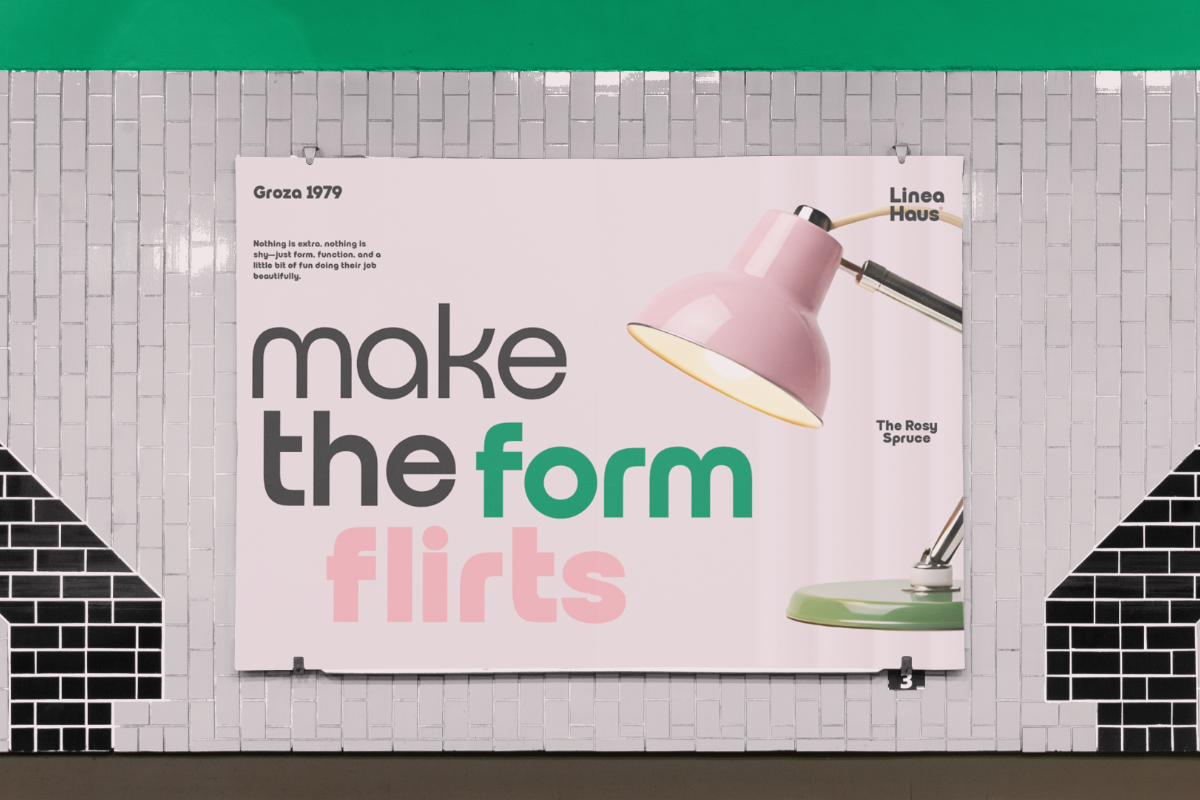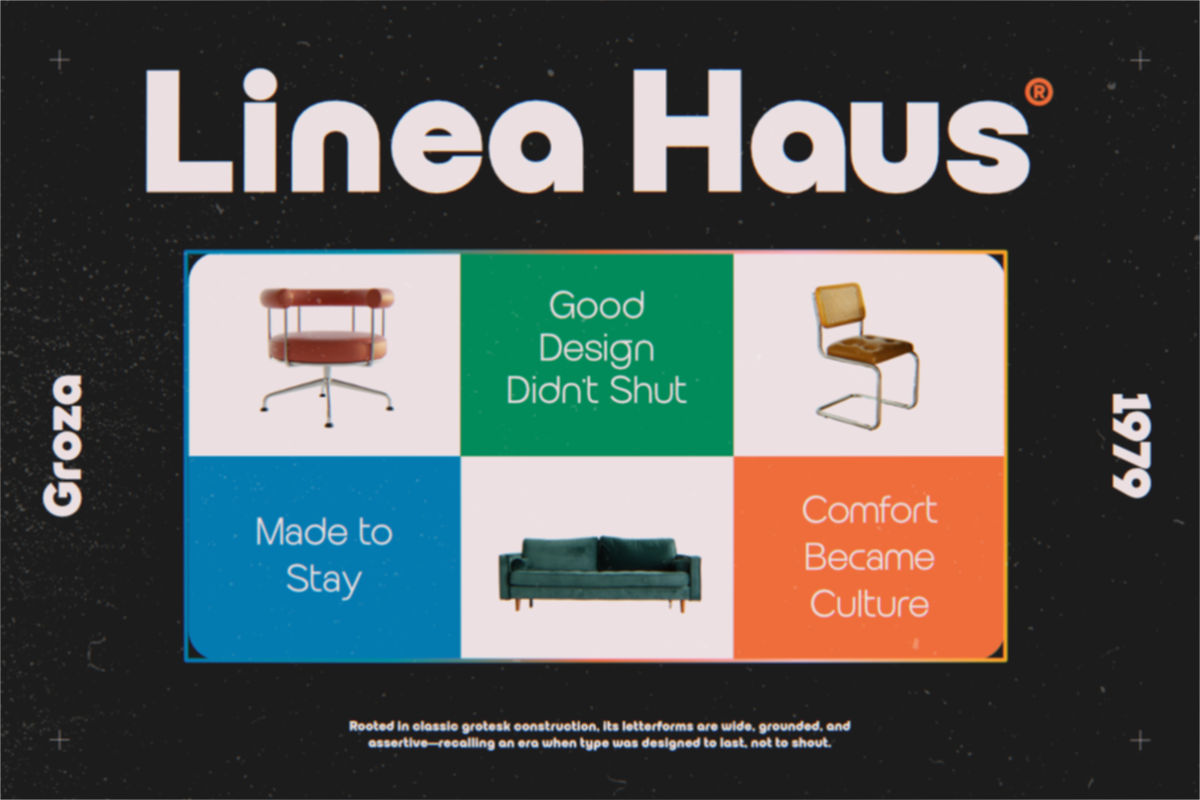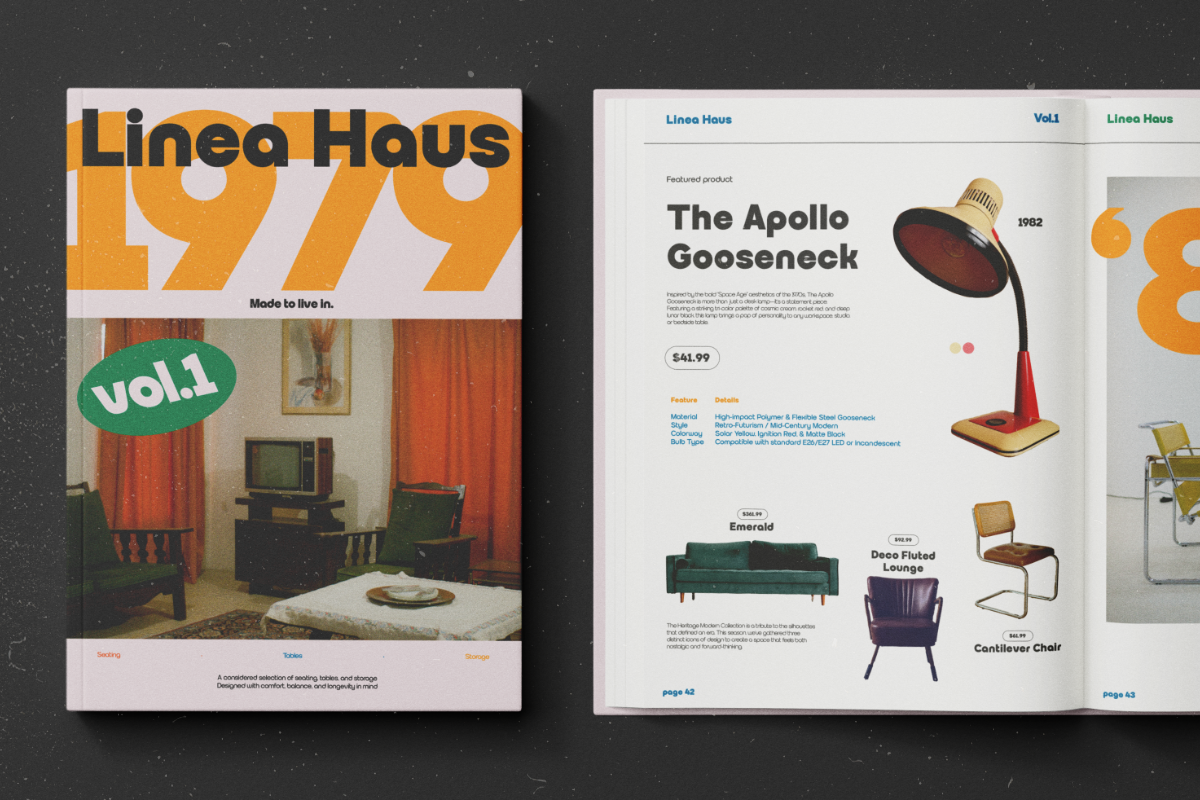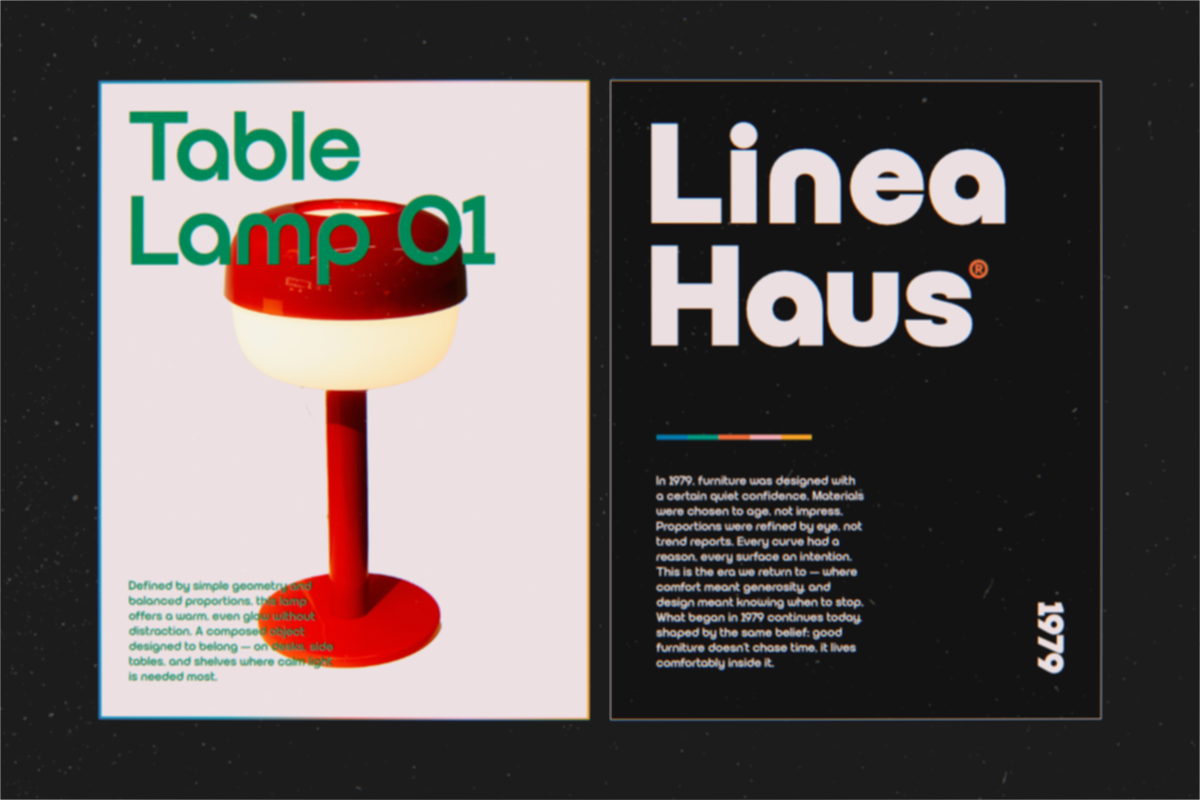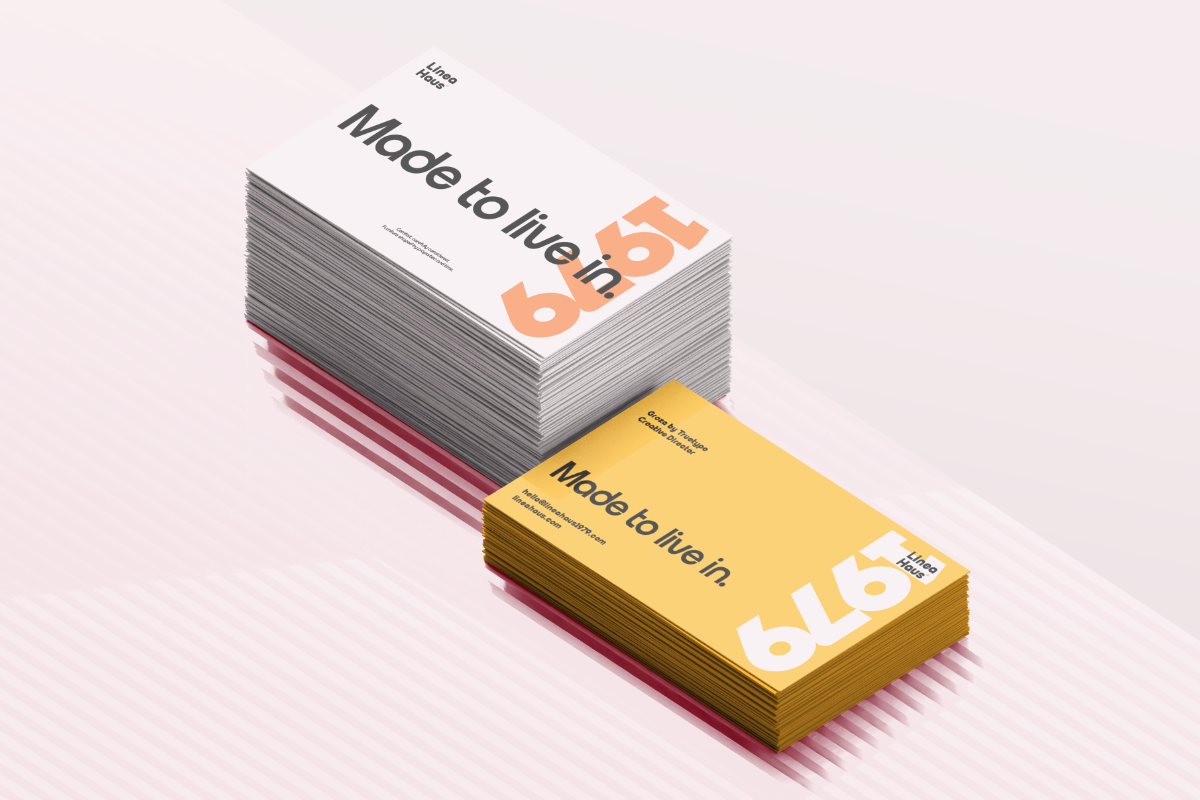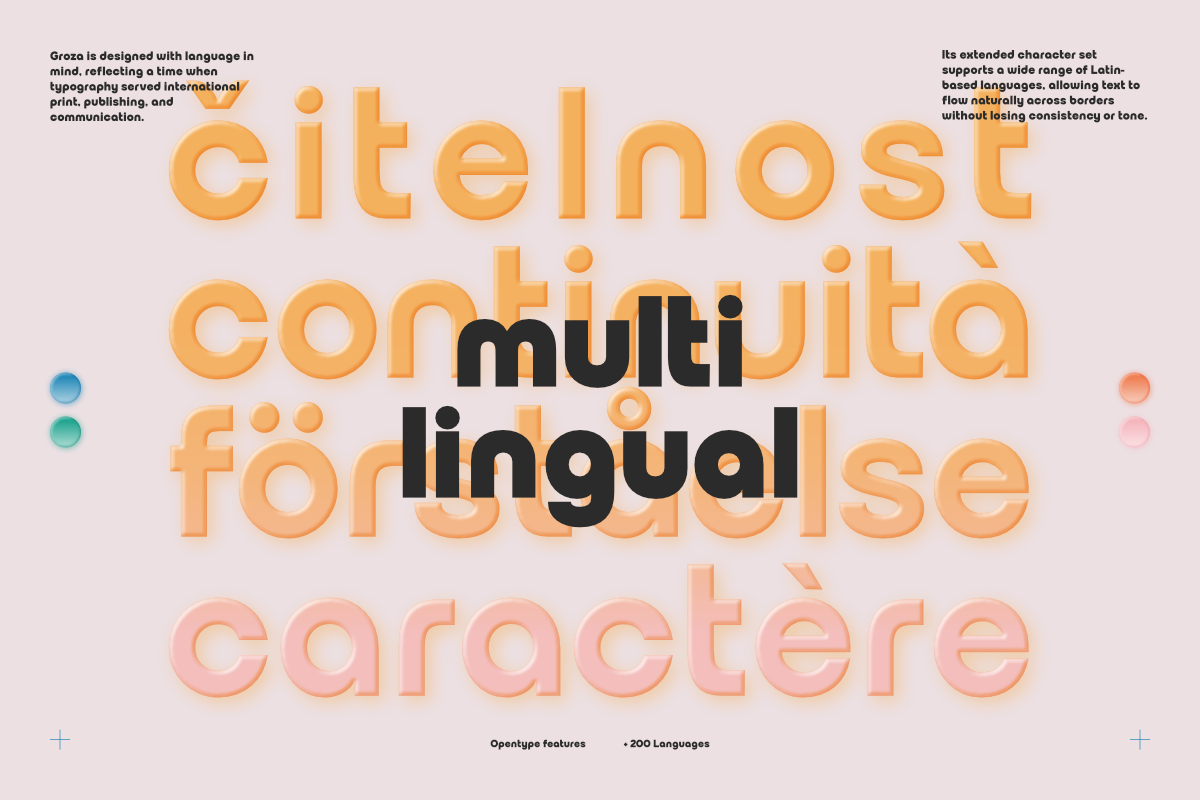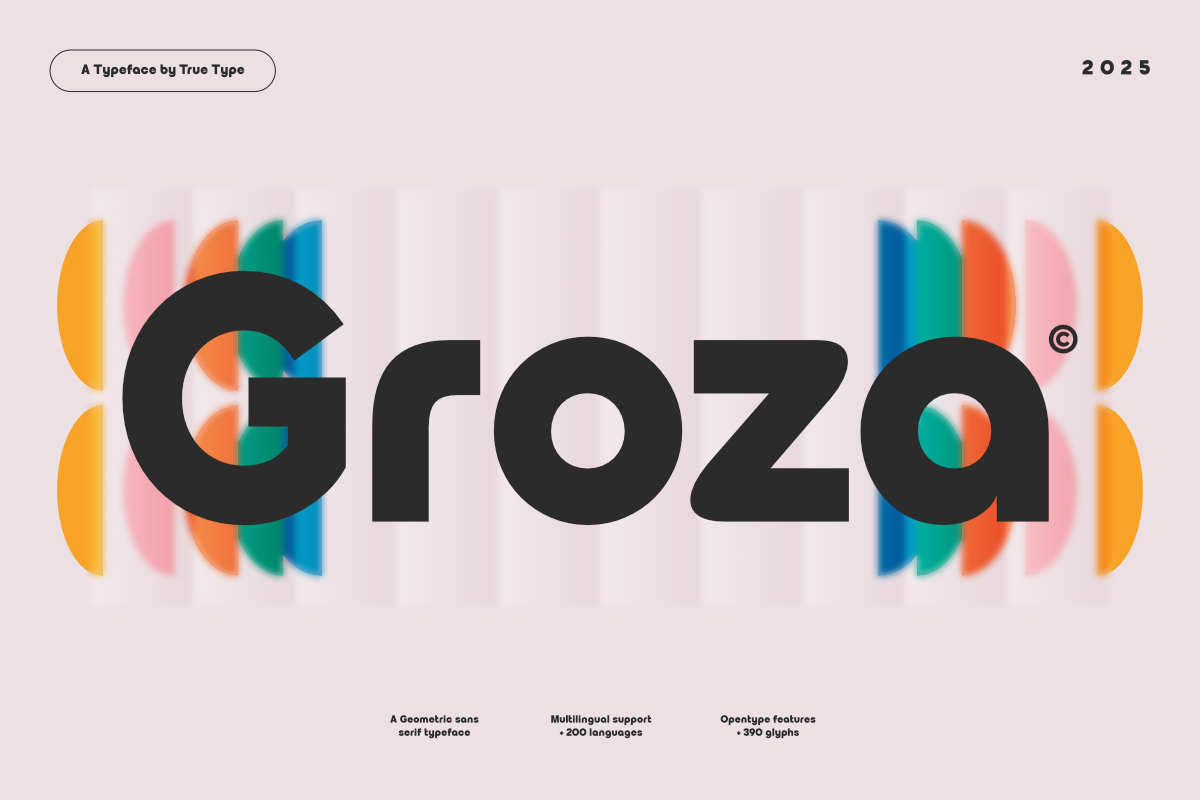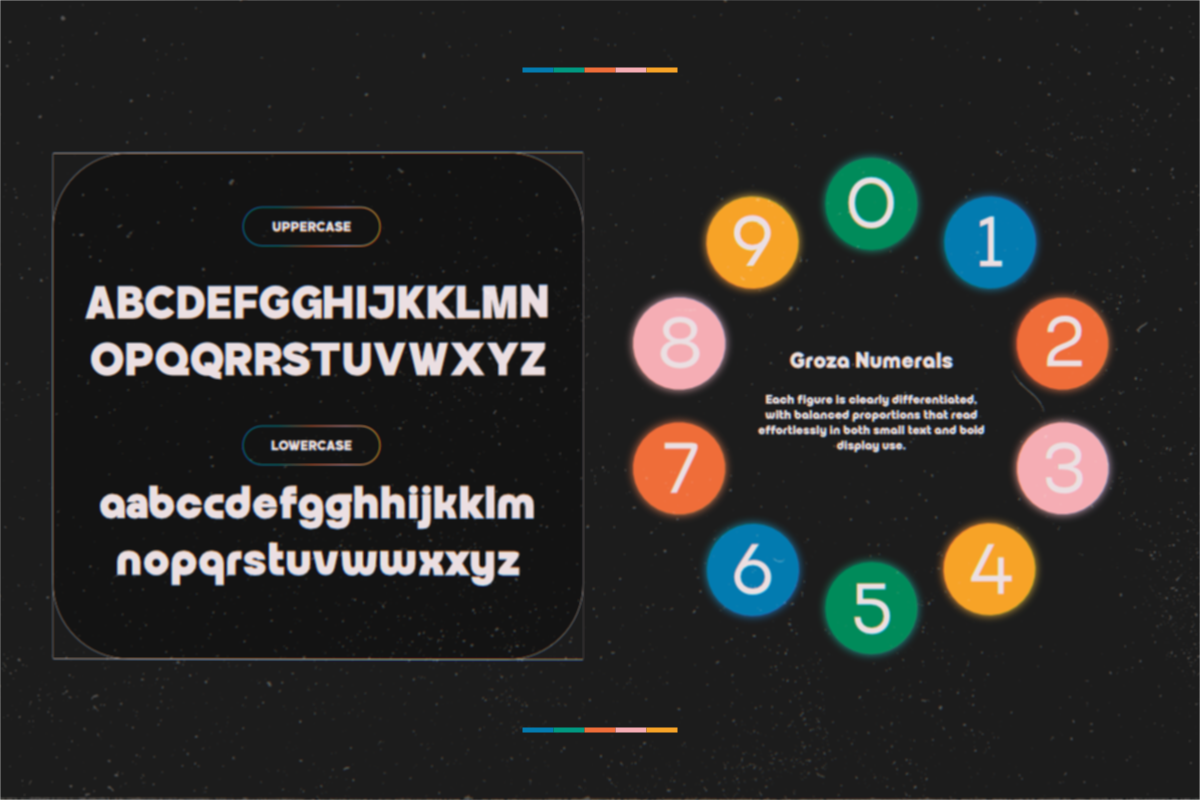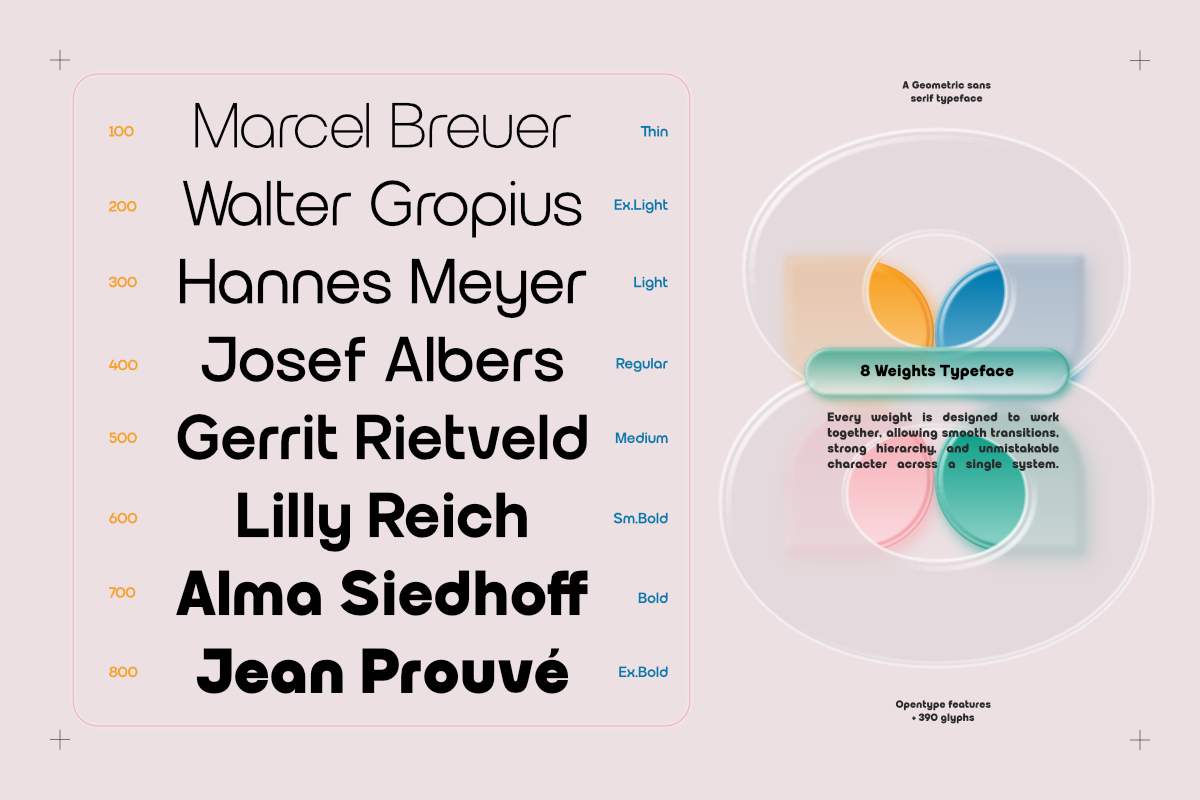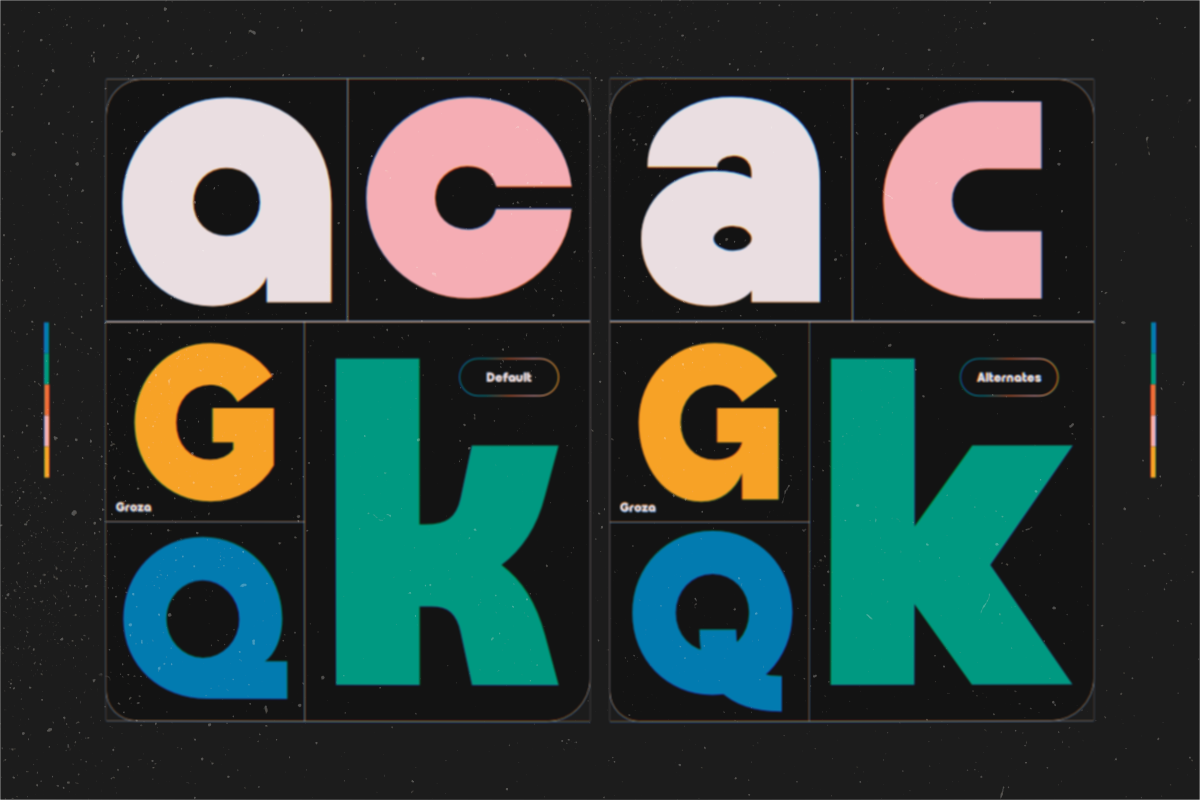
TRT Groza created by Truetype is a modern variable sans serif typeface designed to deliver a bold, confident, and contemporary visual presence. Built with strong geometric foundations and balanced proportions, Groza offers a clean yet expressive character that performs exceptionally well across both large display settings and functional text applications.
As a variable font, TRT Groza provides seamless control over weight and typographic expression, allowing designers to fine-tune visual hierarchy and adapt layouts with precision. Its consistent stroke structure and refined curves ensure excellent legibility while maintaining a powerful, modern tone.
Groza is crafted for designers seeking a versatile, future-ready type system suitable for branding, editorial design, digital products, web interfaces, posters, and modern visual identities. Whether used in minimalist layouts or bold compositions, TRT Groza VF delivers clarity, impact, and professional polish.